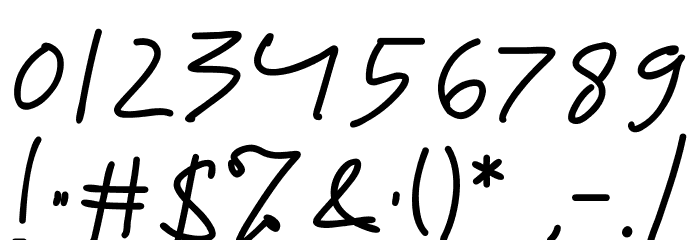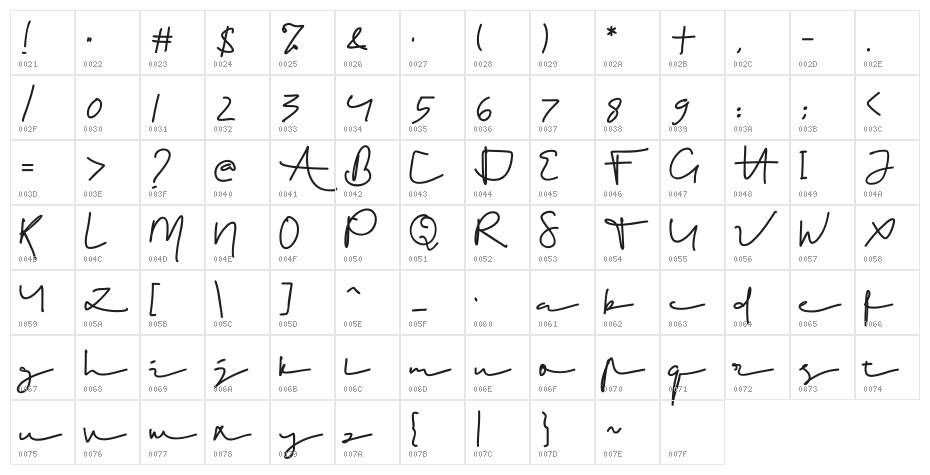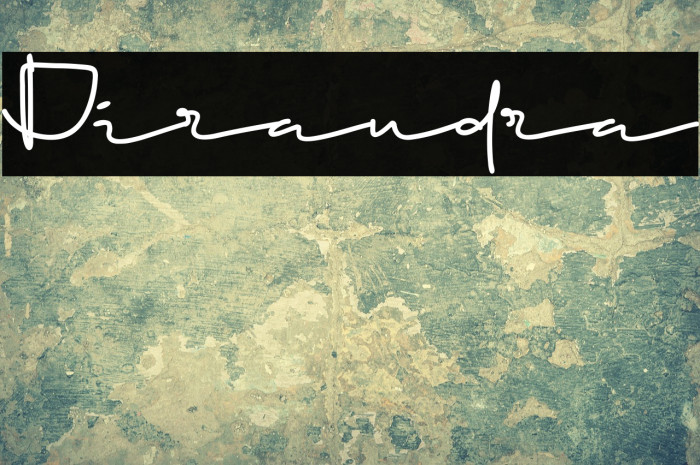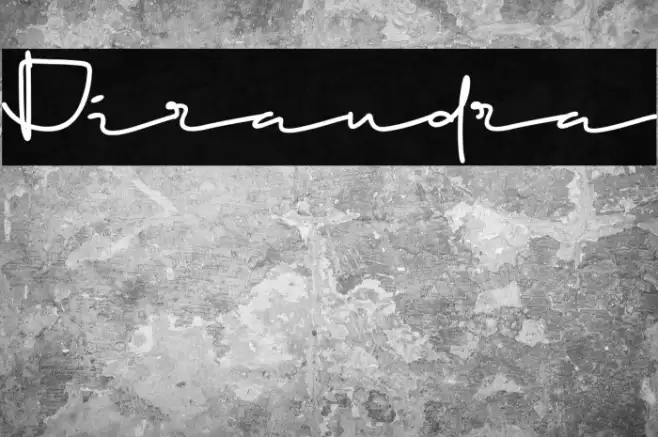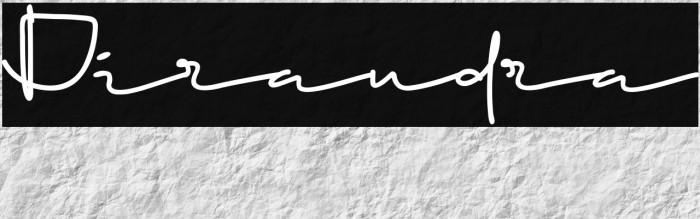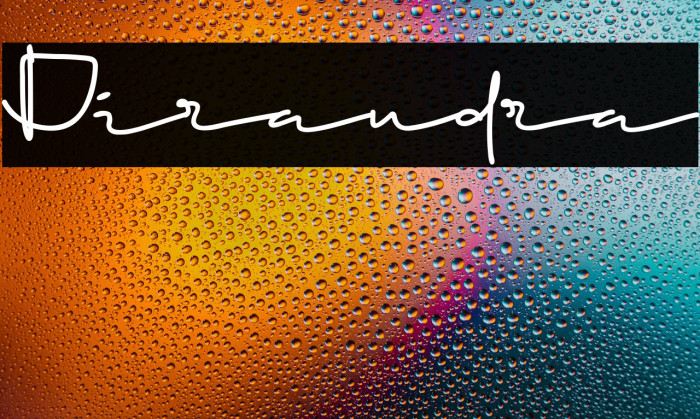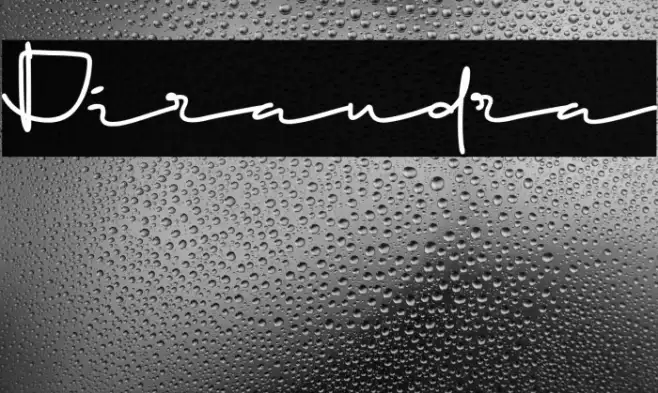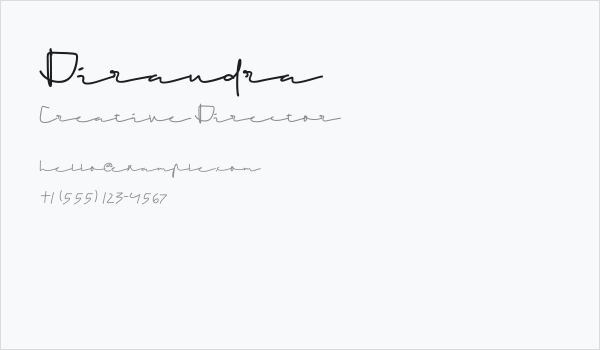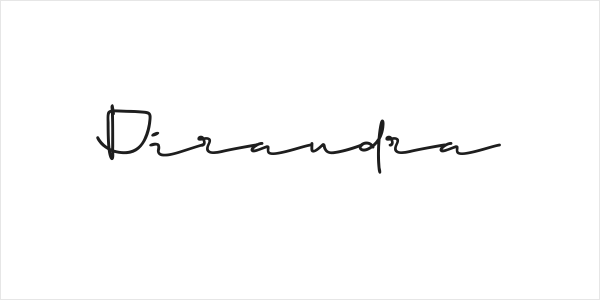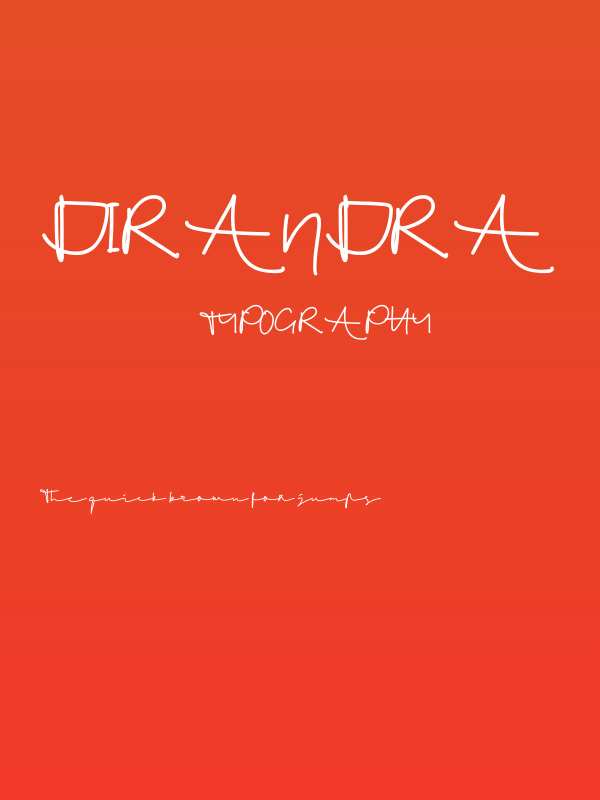
Dirandra Font
Dirandra Description
This font features a casual, handwritten style with a playful and dynamic flow. The letters are connected in a cursive manner, giving it a natural and personal touch. The uppercase characters are bold and expressive, while the lowercase letters maintain a consistent, flowing script. Numbers and special characters follow the same handwritten aesthetic, adding to the font's cohesive look. The strokes vary in thickness, providing a medium contrast that enhances readability while maintaining its artistic flair.
| Overall Style | Casual, Artistic |
| Proposed Projects | Ideal for personal branding, greeting cards, invitations, and creative projects that require a personal touch. |